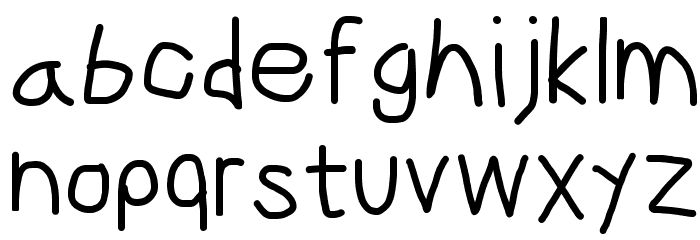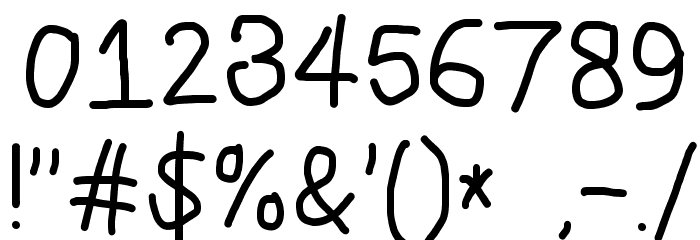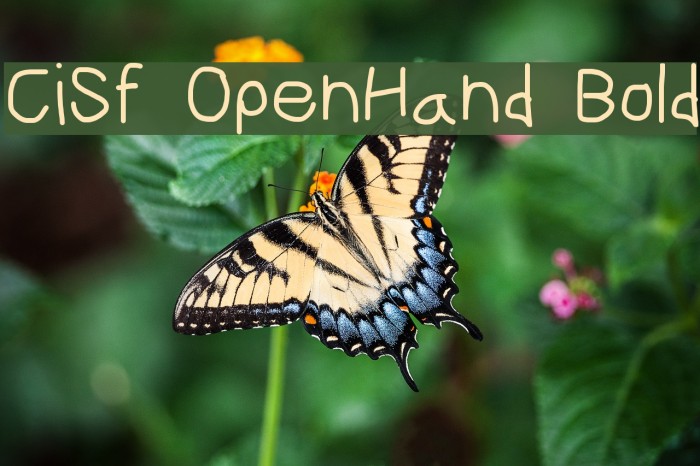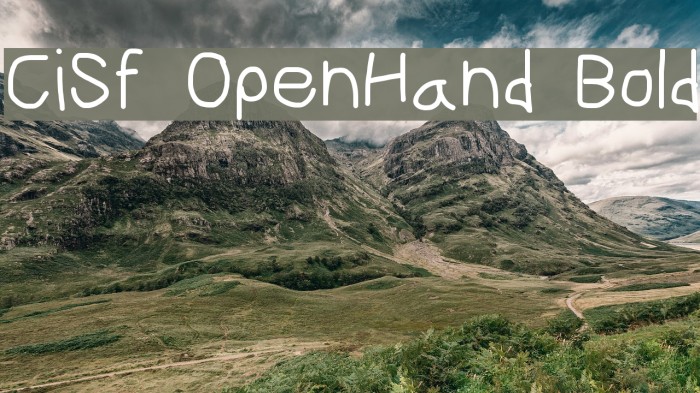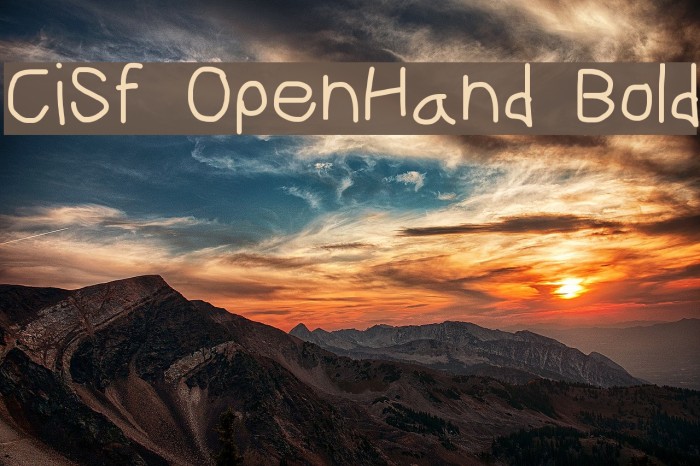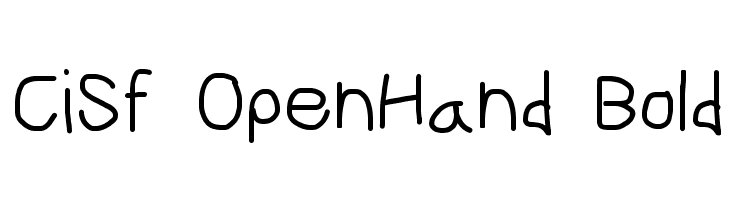
CiSf OpenHand Bold
This playful and casual font features a handwritten style that mimics the natural flow of penmanship. The characters are slightly irregular, adding a personal and approachable feel. The strokes are consistent in weight, providing a uniform appearance across all letters and numbers. The font includes a full set of uppercase and lowercase letters, numerals, and a variety of special characters. Its informal style makes it suitable for projects that require a friendly and relaxed tone.
A playful, handwritten font with consistent stroke weight and casual style.
- Proposed Projects: Ideal for children's books, greeting cards, personal blogs, and informal branding.
- Overall Style: Casual
- Use Case: Headlines, Informal text, Creative projects